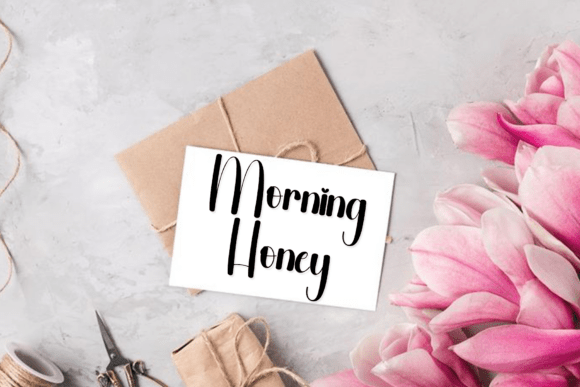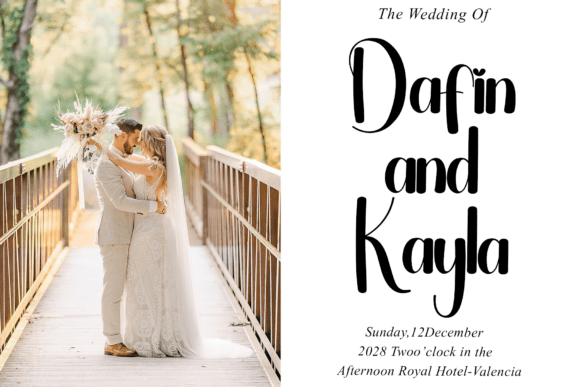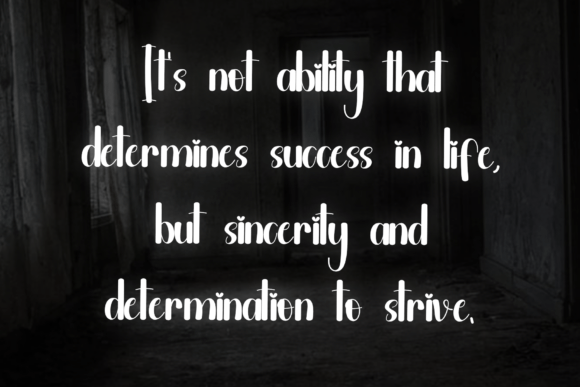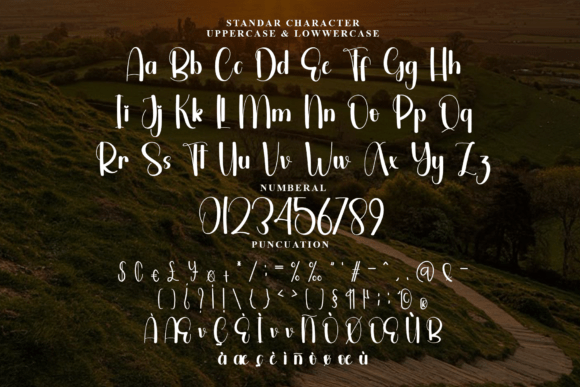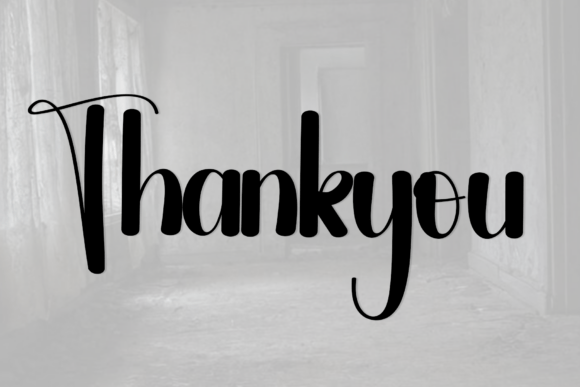
Unveiling Haunting: The Elegant Mystery of a Modern Handwritten Font
In the realm of typography, few fonts manage to capture the essence of elegance and mystery as effectively as Haunting. This unique and professional modern handwritten font has been crafted to bring a sense of refined sophistication to any design project. With its slender, elongated letterforms and rhythmic, vertical flow, Haunting is poised to become a cornerstone asset for designers and crafters seeking to infuse their work with a touch of artisanal beauty.
The Distinctive Features of Haunting
Haunting’s design is characterized by several distinctive features that set it apart from other modern handwritten fonts. The font boasts charming, illustrative accents, with the heart-shaped dot on the “i” and sweeping, elongated terminals being particularly noteworthy. These elements contribute to the font’s balanced monolinear stroke, which provides excellent legibility while maintaining an artisanal, hand-crafted aesthetic.
Crafting Elegance and Mystery
At the heart of Haunting’s design philosophy is the aim to evoke a sense of elegant mystery. This is achieved through the careful balancing of refined, sophisticated elements with a touch of whimsy and charm. The result is a font that feels both intimate and sophisticated, making it an ideal choice for a wide range of design applications.
Applications of Haunting
Haunting’s versatility and elegance make it suitable for various design projects, including:
- Boutique Branding: Haunting’s unique and sophisticated aesthetic makes it an excellent choice for boutique brands looking to establish a distinctive identity.
- Moody Editorial Headers: The font’s elegant mystery and refined charm make it perfect for editorial headers that require a touch of sophistication and intrigue.
- High-End Stationery: Haunting’s artisanal, hand-crafted aesthetic and balanced monolinear stroke make it an ideal choice for high-end stationery, adding a touch of polished human-centric warmth to any design.
- Creative Social Media Signatures: Designers and crafters can use Haunting to create eye-catching and sophisticated social media signatures that reflect their personal brand and style.
The Benefits of Using Haunting
By incorporating Haunting into their designs, designers and crafters can enjoy several benefits, including:
- Polished Human-Centric Warmth: Haunting’s elegant and refined aesthetic adds a touch of warmth and personality to any design, making it feel more approachable and engaging.
- Legendary Artisanal Beauty: The font’s unique and sophisticated design elements contribute to an artisanal, hand-crafted aesthetic that is sure to impress.
- Excellent Legibility: Haunting’s balanced monolinear stroke and careful attention to detail ensure that the font remains highly legible, even at smaller sizes.
Haunting is a modern handwritten font that offers a unique blend of elegance, mystery, and sophistication. With its slender, elongated letterforms, charming illustrative accents, and balanced monolinear stroke, Haunting is poised to become a go-to choice for designers and crafters seeking to add a touch of refined charm to their designs. Whether used for boutique branding, editorial headers, high-end stationery, or social media signatures, Haunting is sure to deliver a sense of polished human-centric warmth and legendary artisanal beauty to any project.
By embracing Haunting, designers and crafters can elevate their work and create designs that feel both intimate and sophisticated. With its versatility, elegance, and refined charm, Haunting is an extraordinary choice for any project seeking to make a lasting impression.